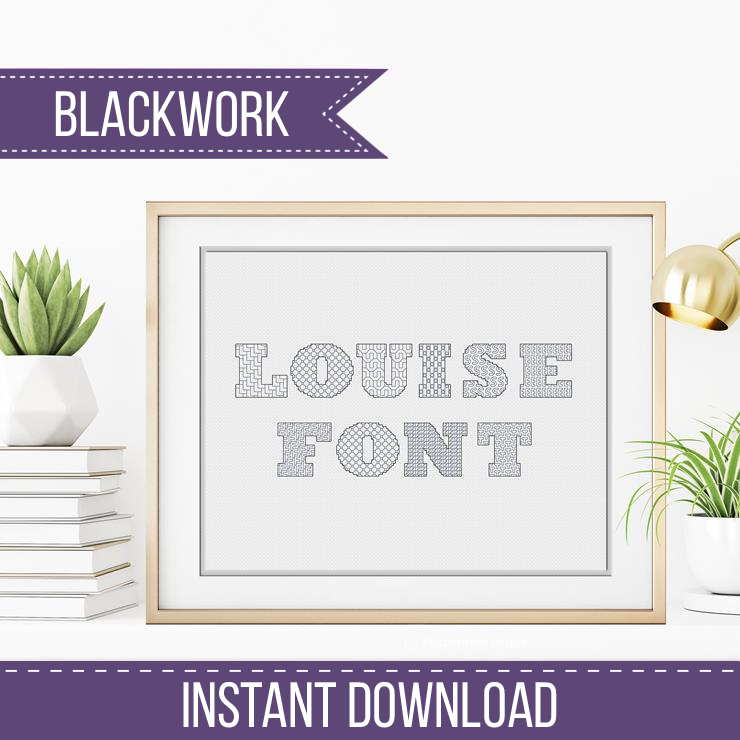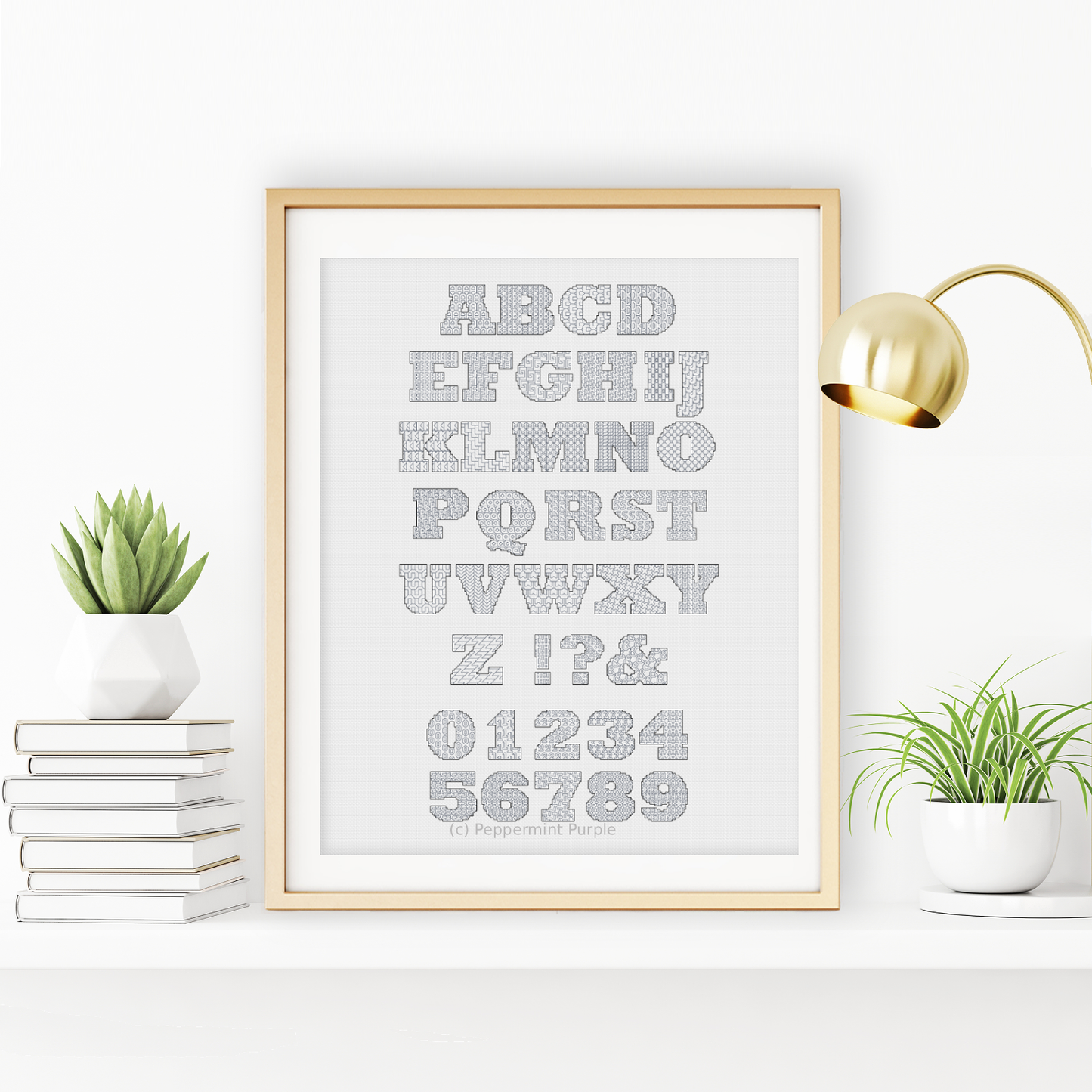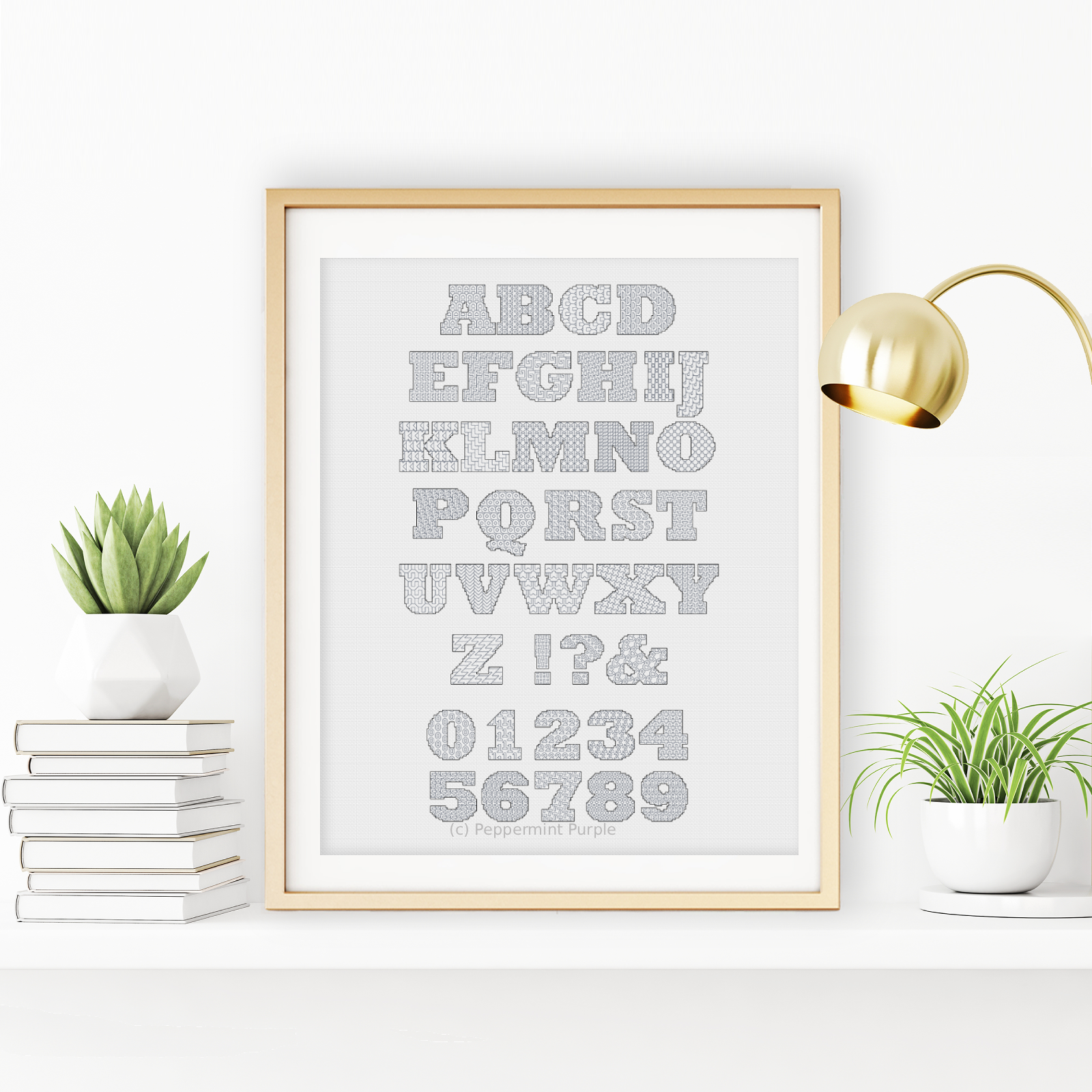
This Blackwork Font has each letter filled with fillers created using the letter itself.
Please note there are no lowercase with this font, but it does include a question mark, exclamation mark, ampersand and numbers
Letters are mostly 29 stitches tall, with the largest (J ) being 38
Type of Stitch: Blackwork